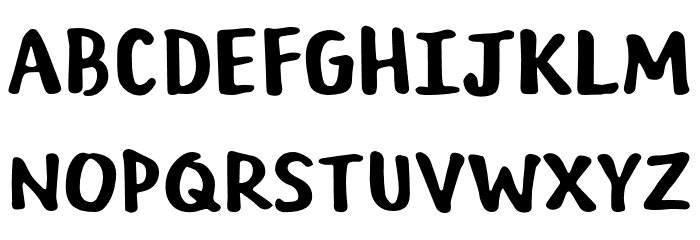
Mega Marker Font
This font exudes a playful and casual vibe, reminiscent of handwritten marker strokes. The characters are bold and rounded, with a slightly uneven baseline that adds to its informal charm. Each letter is distinct, with a consistent thickness throughout, giving it a cohesive look. The numbers and special characters maintain the same playful style, ensuring uniformity across all text. This font is perfect for projects that require a personal touch, such as children's books, casual posters, or creative branding. Its legibility and unique style make it stand out while remaining easy to read.
A playful, handwritten-style font with bold, rounded characters.
- Font: Mega Marker
- Proposed Projects: Ideal for children's books, casual posters, creative branding, and personal projects.
- Overall Style: Casual
- Use Case: Headlines, Logos, Informal Text